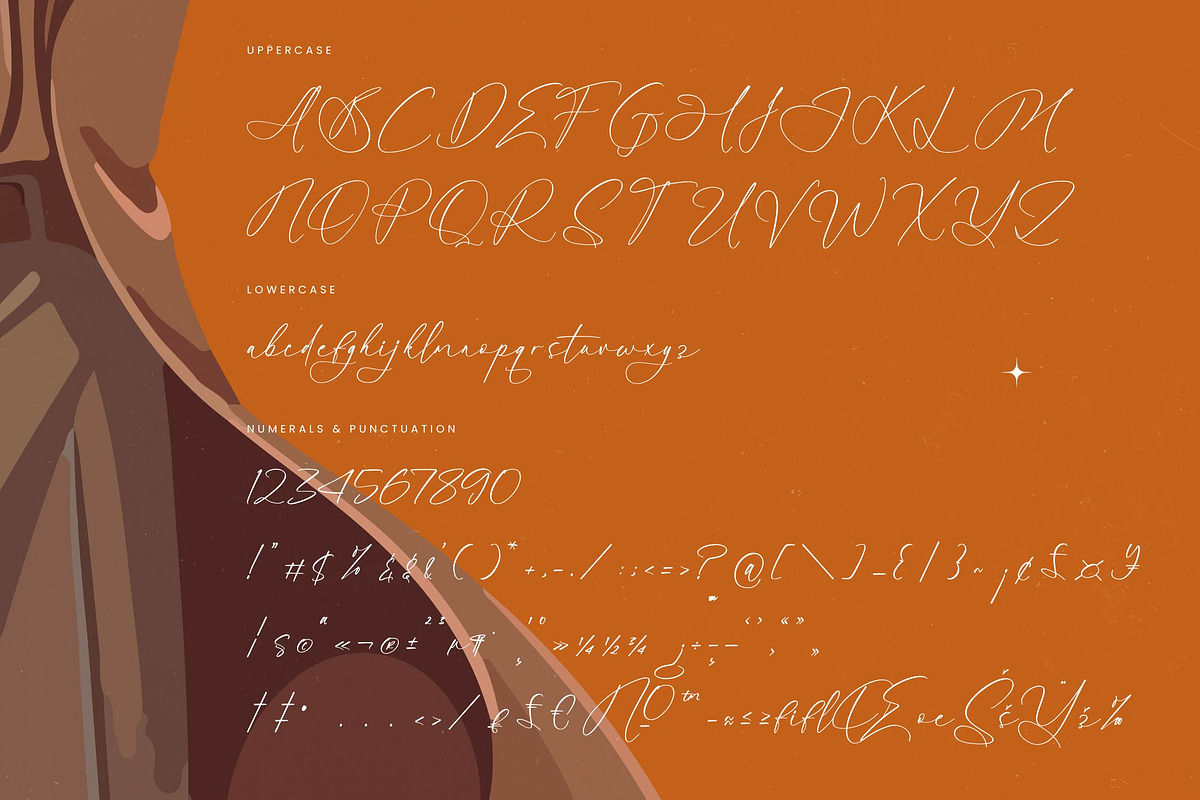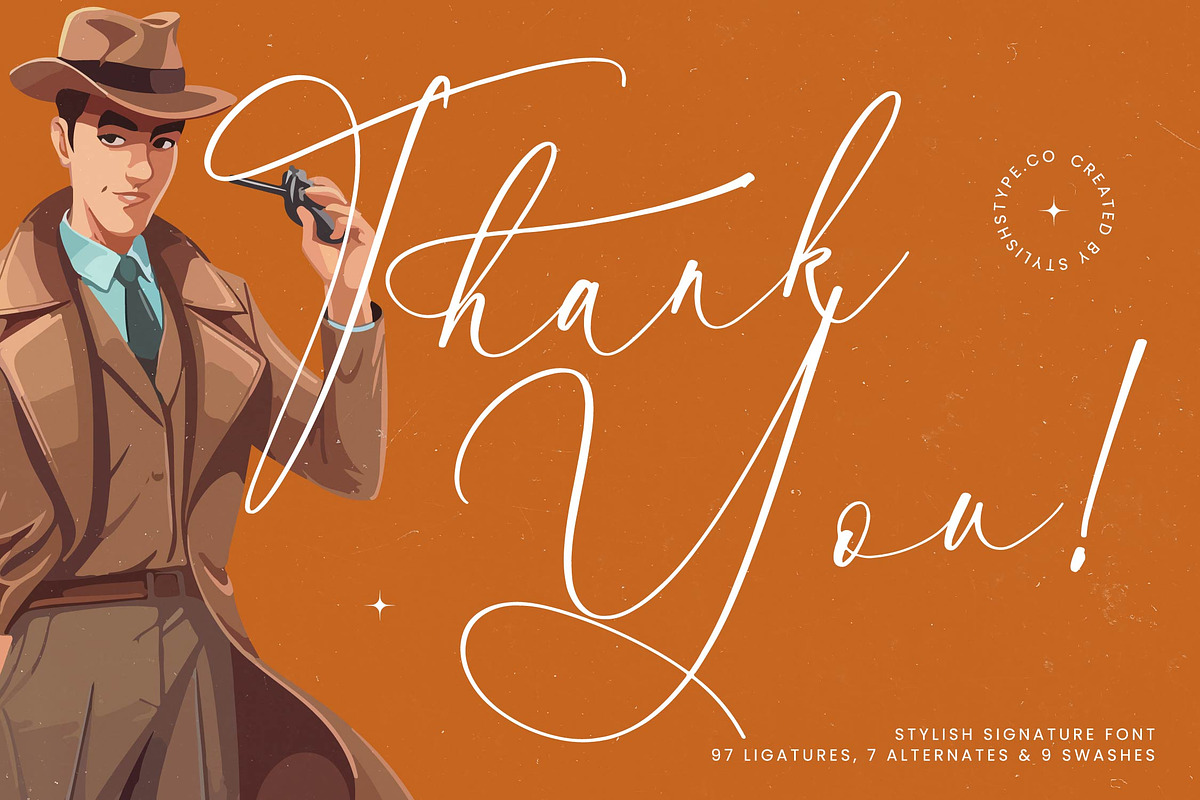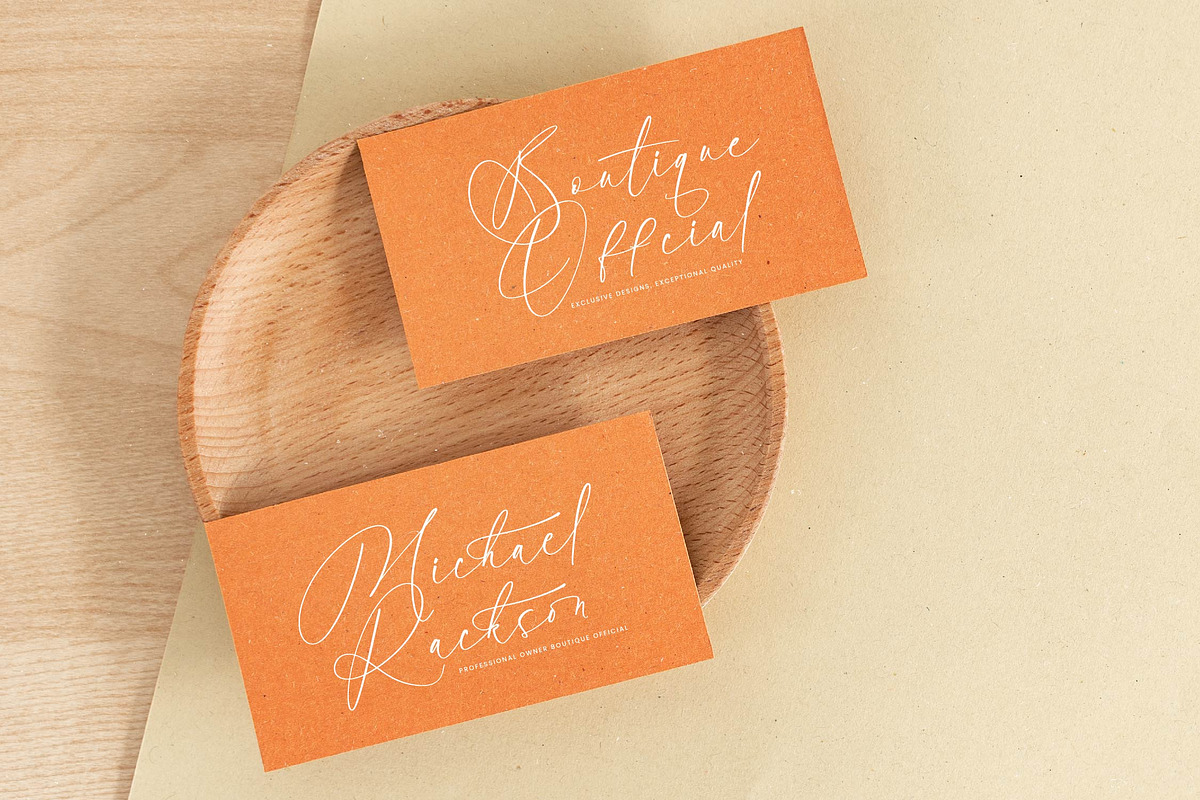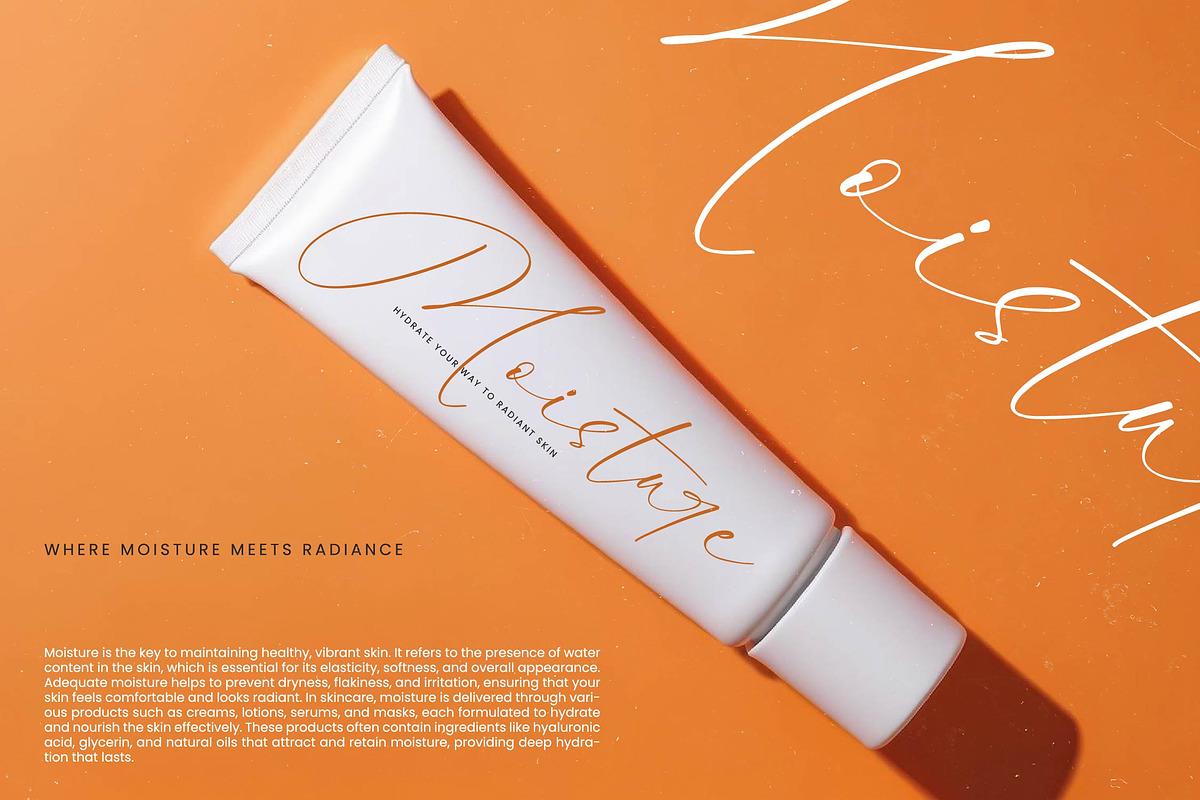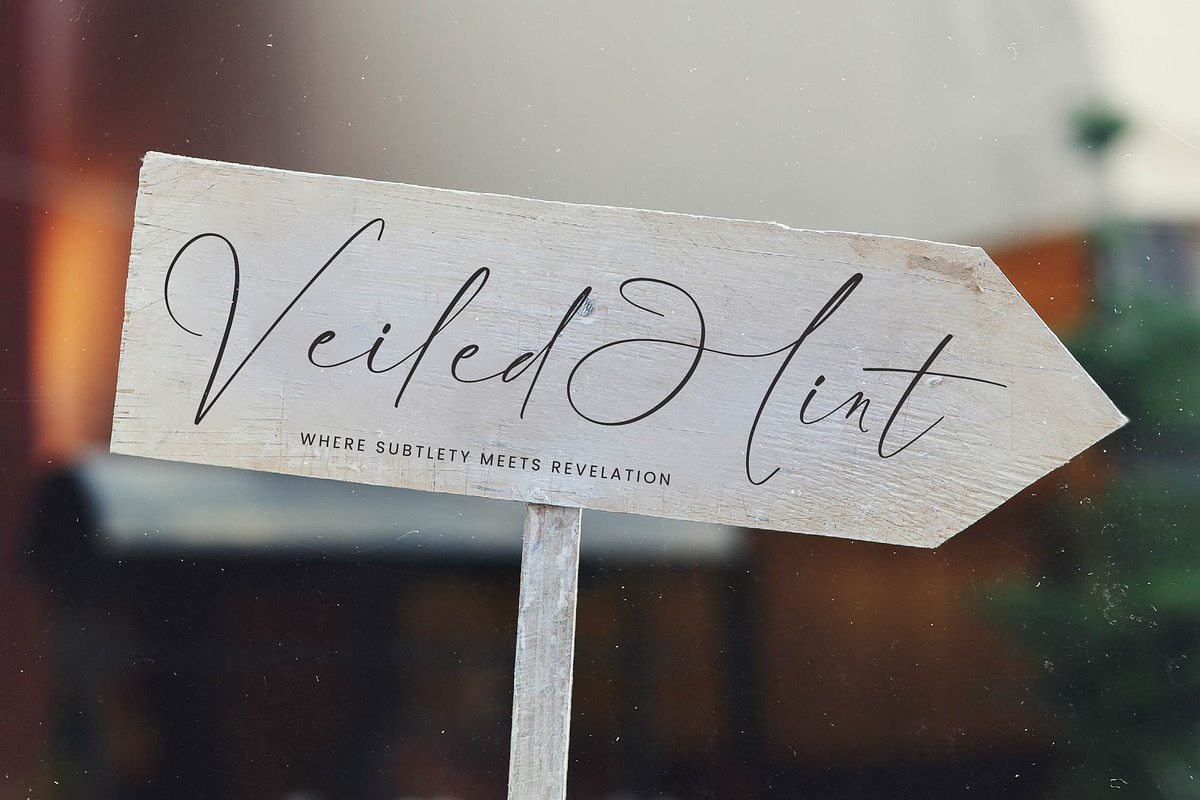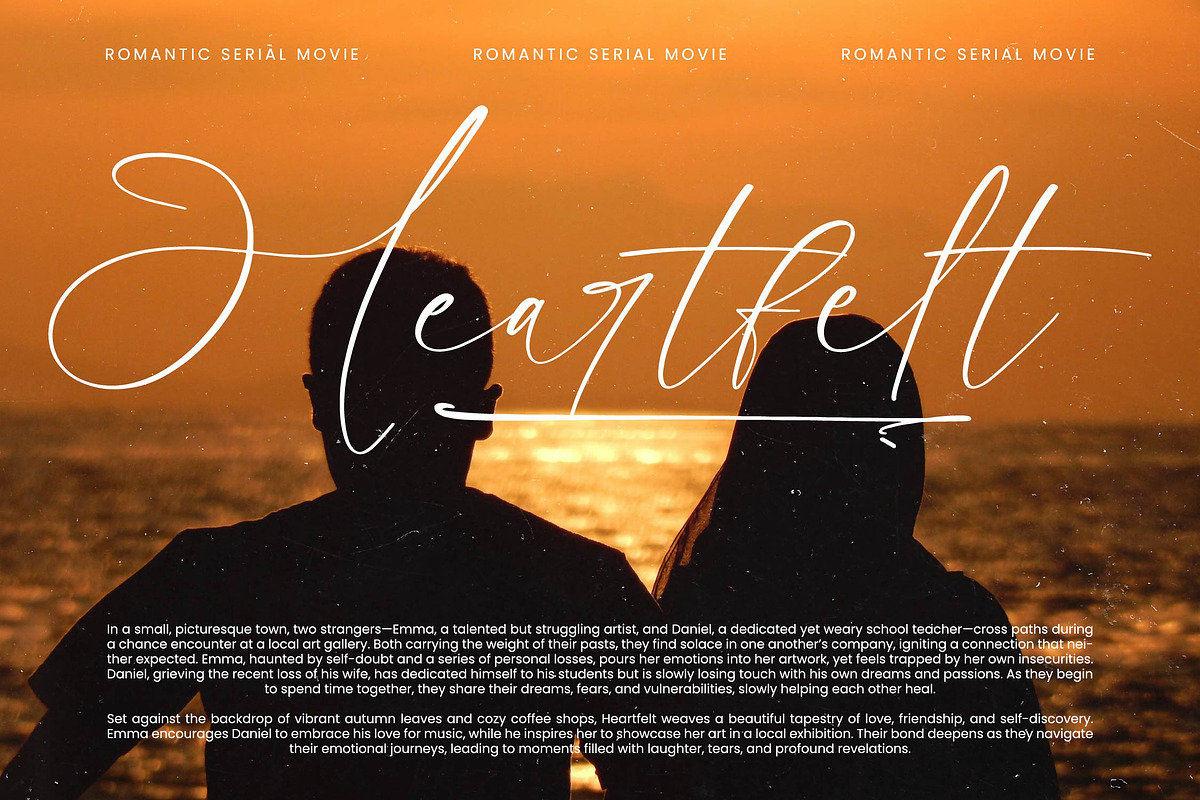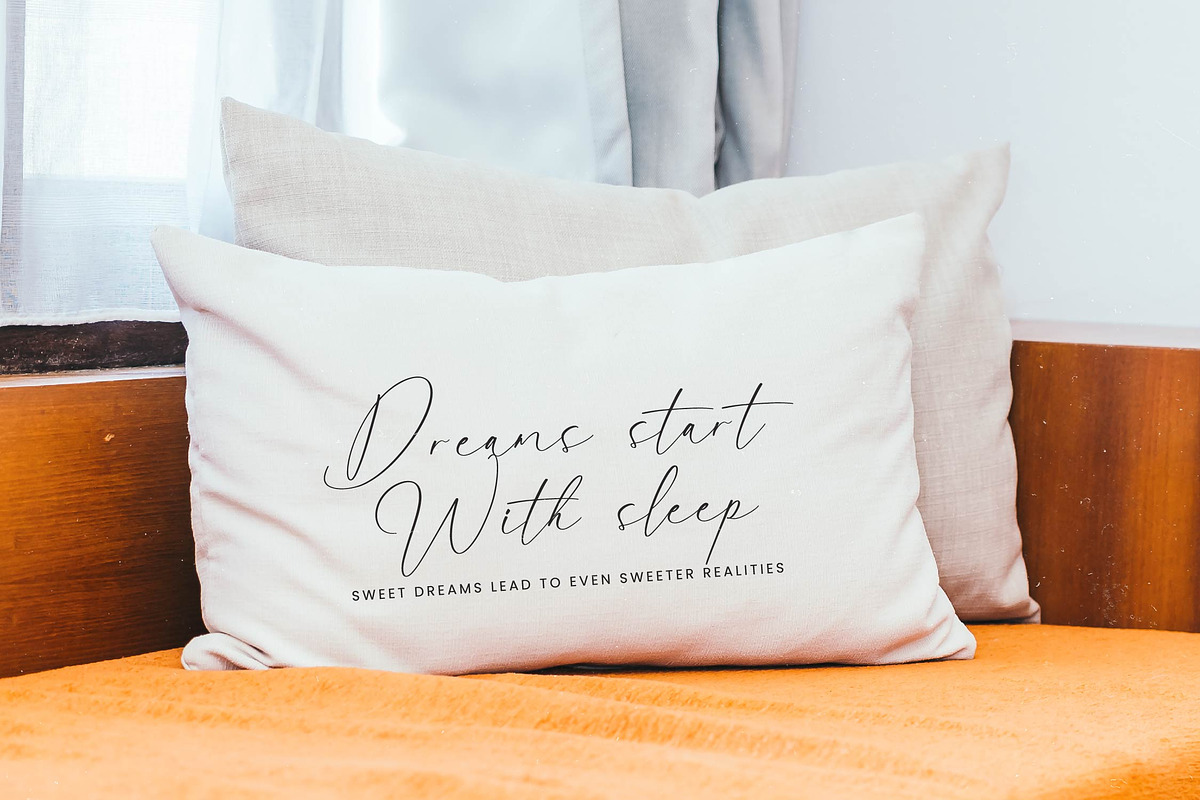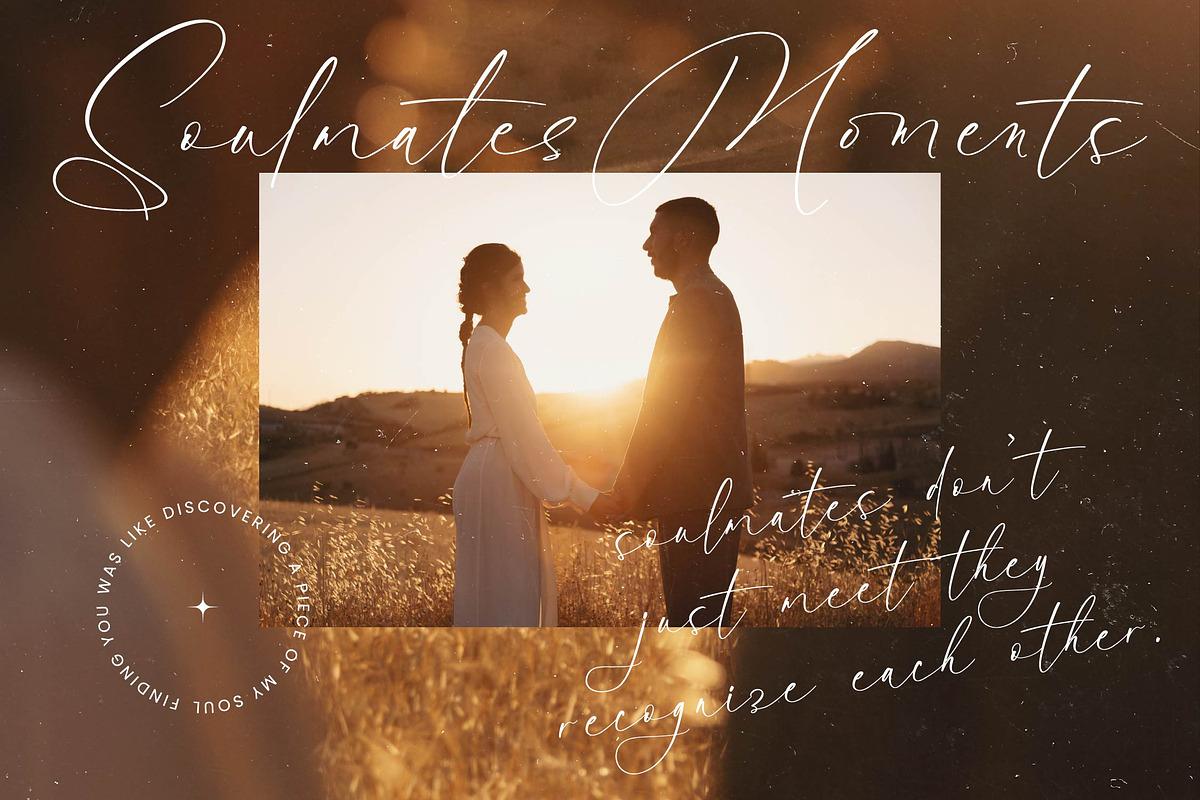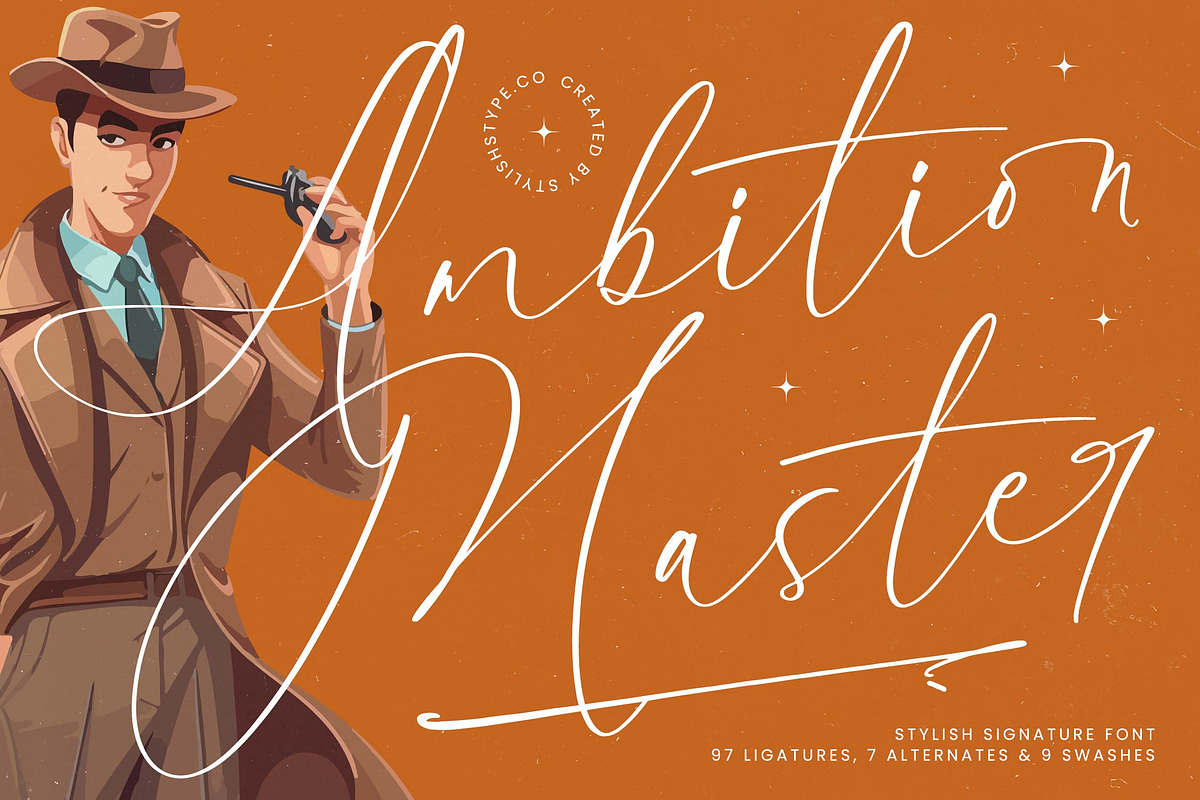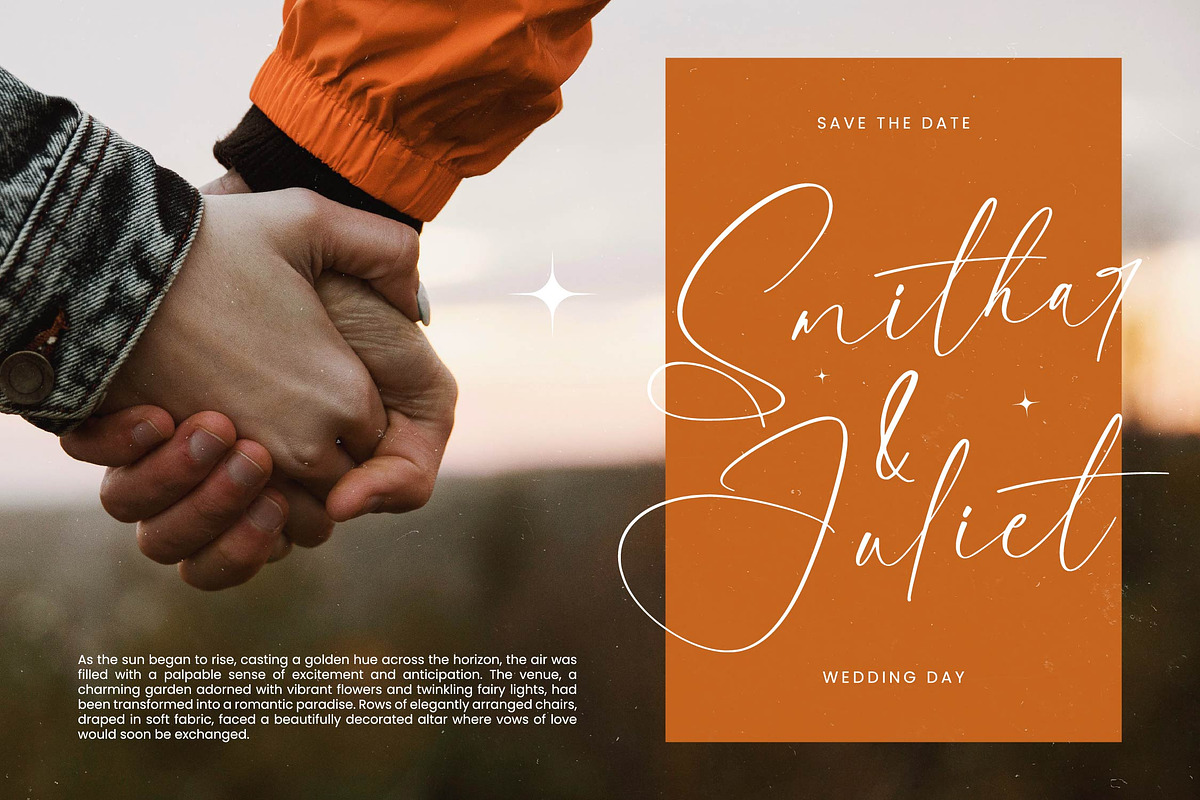
Ambition Master Stylish Signature
Ambition Master - Stylish Signature Font , from Stylishtype.Co , Suitable for any projects such as: logos, branding projects, homeware designs, product packaging, mugs, quotes, posters, shopping bags, t-shirts, book covers, name card, invitation cards, greeting cards, label, photography, watermark, special events, and all your other luxury and beautiful projects that need a Luxury Script taste.
- 97 Ligature 7 Alternates & 9 Swashes